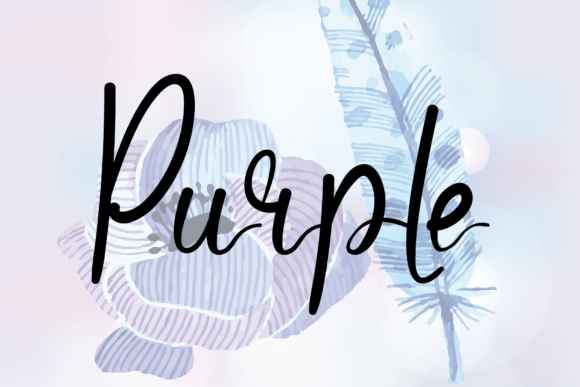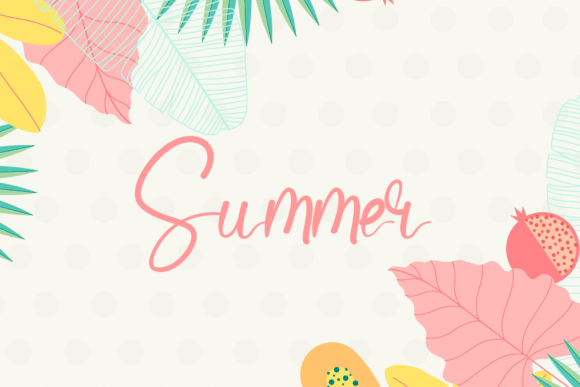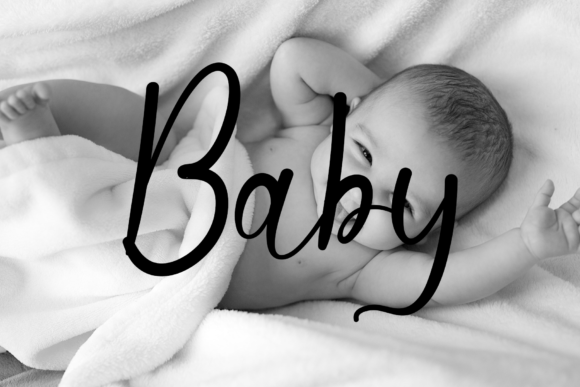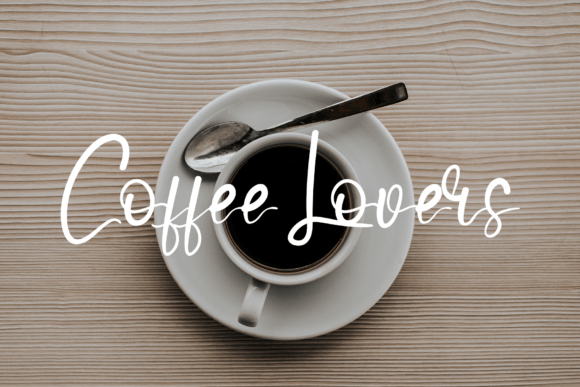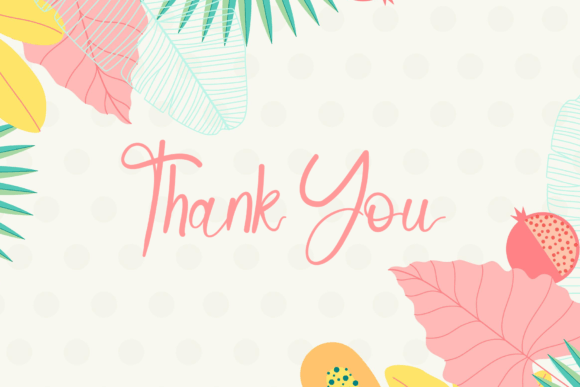
Introduction to Olala Font
Olala is a sweet and friendly handwritten font.
Cute and fun, this font is ideal for writing wedding invitations, cards, or any other design that might need a lovely touch .
Key Features of Olala Font